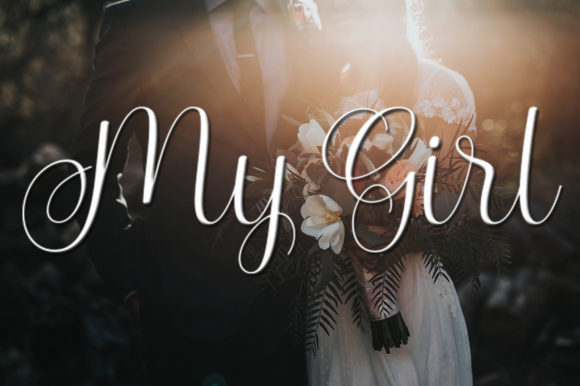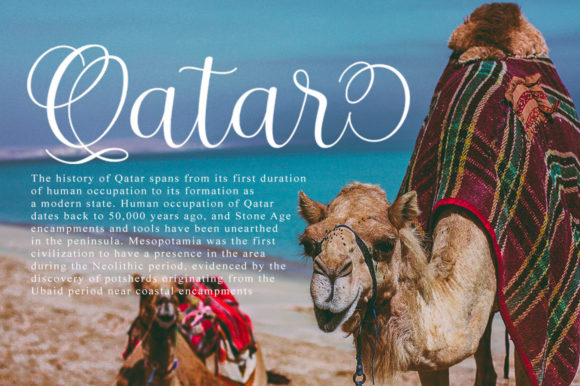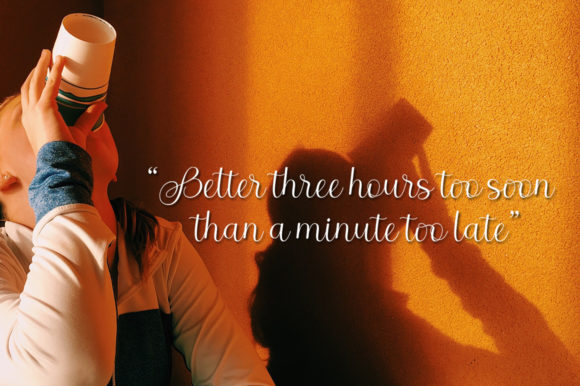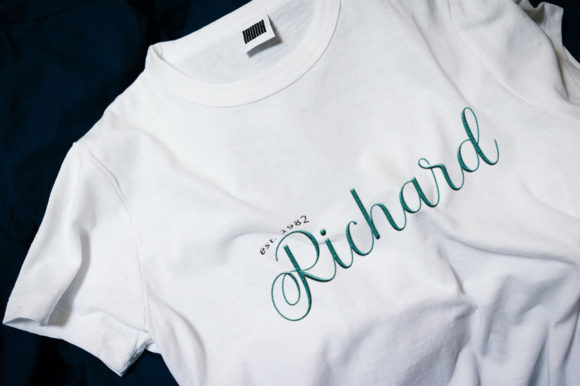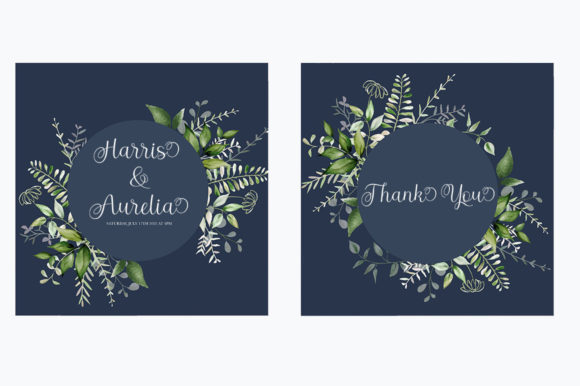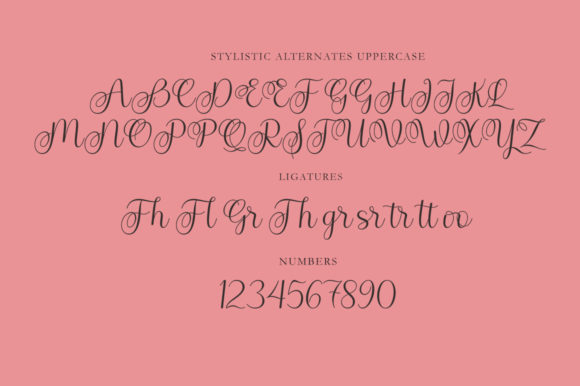
Healing Script Font
About Healing Script Font
“Healing Script” is a captivating signature-style script font that brings a sense of elegance and charm to your design projects. With its stunning and fluid characters, this font adds a touch of sophistication and personalization to a wide range of creative endeavors.
Imagine using “Healing Script” to create a memorable and distinctive logo. The font’s signature-style strokes and intricate details lend a unique and personalized touch to your brand identity. Whether you’re designing a logo for a wellness center, a beauty brand, or a boutique, “Healing Script” can convey a sense of care and refinement that resonates with your target audience.
The versatility of “Healing Script” extends to product packaging. Whether you’re designing labels for natural skincare products, herbal teas, or holistic remedies, the font’s graceful and stylish appearance can enhance the perceived value of your offerings. Its signature-style script adds an element of artistry that captures attention and evokes feelings of well-being.
For special occasions like weddings and events, “Healing Script” shines as a beautiful choice for invitations. Its flowing and elegant characters bring a sense of romance and sophistication to wedding stationery, setting the tone for a memorable and heartfelt celebration. The font’s unique style adds a personal touch that makes invitations feel truly special.
“Healing Script” is also ideal for crafting impactful headlines and quotes. Whether you’re designing book covers, posters, or social media graphics, the font’s graceful curves and flourishes create a visually captivating focal point. Its signature-style script adds an air of elegance and importance to the text, making your message stand out.
Pairing “Healing Script” with complementary design elements, such as botanical illustrations, soothing color palettes, or natural textures, can further enhance its calming and inviting appearance. The font’s intricate details and organic flow make it a perfect choice for projects that promote wellness, relaxation, and self-care.
When used as a signature or watermark on digital images, “Healing Script” adds a personal and professional touch. Its distinctive script creates a visual signature that reflects your individual style and enhances the overall aesthetics of your photography or artwork.
Whether you’re designing book covers, labels, branding materials, or event invitations, “Healing Script” offers a timeless and versatile option that can adapt to various design contexts. Its signature-style script captures the essence of grace and sophistication, making it an excellent choice for projects that seek to convey a sense of well-being and elegance. With “Healing Script,” you have a font that can elevate your creative visions and evoke feelings of comfort and positivity.